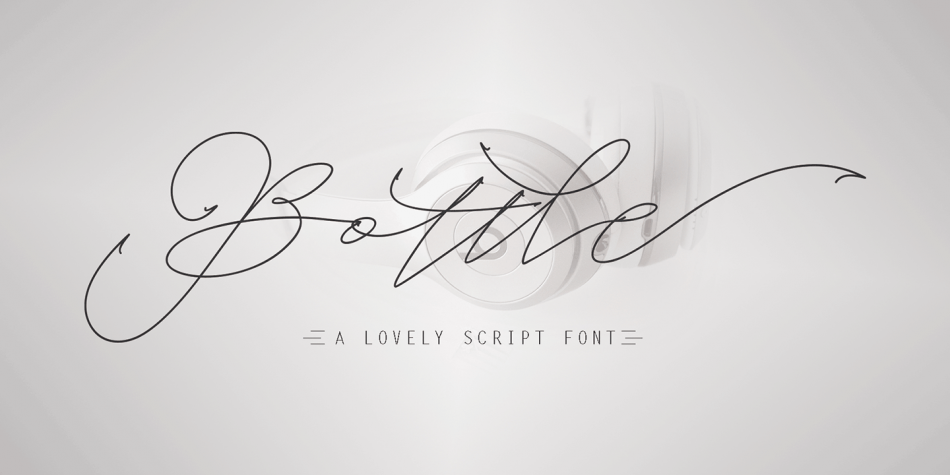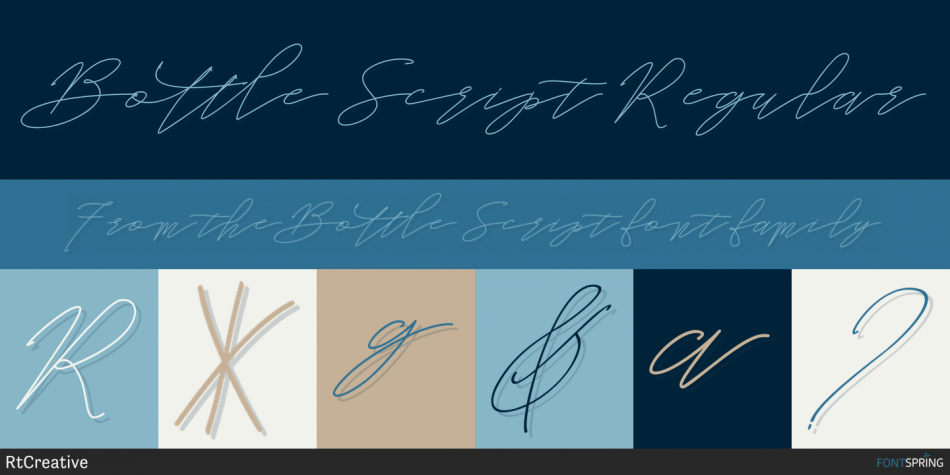
Designed by Rahmat Hidayat, Bottle Script is a modern calligraphy font published by RtCreative.
Bottle Modern Calligraphy. This font was designed by handwriting, and it has a modern and unique forms of calligraphy, the writing style is very natural.
The Features of this fonts is; * Standart ligatures * Stylistic Alternates * Contextual Alternates * Stylistic sets * Swash File font Bottle Include; * Bottle OTF * Bottle TTF * Bottle font Web * Bottle PUA Unicode (Private Use Areas) Programs that support in this font is a Photo Shop, Adobe Illustrator, Adobe Indesign, Corel Draw and Microsoft Office.
Can be used for various purposes.such as headings, logos, wedding invitation, t-shirt, letterhead, signage, lable, news, posters, badges etc.